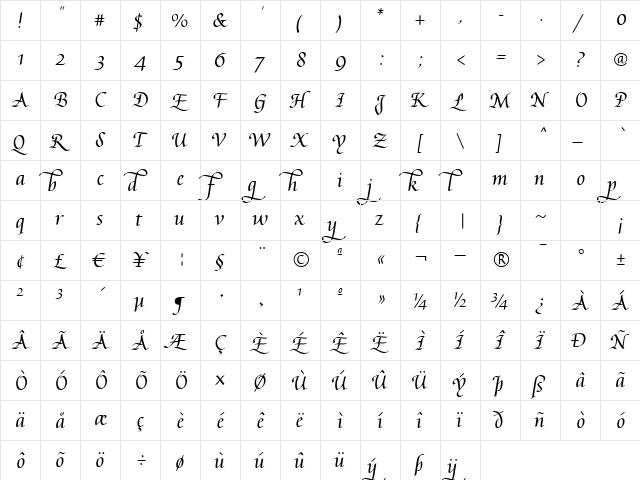
Augusta Cancelaresca Schnurkl Regular
Design Context for Augusta Cancelaresca Schnurkl Typeface
Augusta Cancelaresca Schnurkl is a composed and adaptable typeface that performs quietly and consistently across a wide range of design contexts.